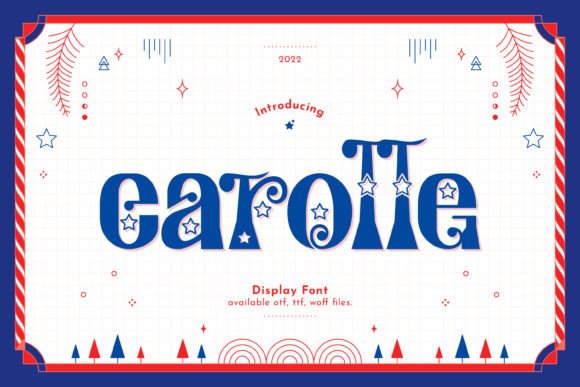
Introducing Carolle Font: The Whimsical and Splendid Lowercase Decorative Font
Are you a designer or crafter looking for a font that can add a touch of magic to your designs? Look no further than Carolle Font! This whimsical and splendid lowercase decorative font is perfect for creating enchanting designs that will captivate your audience. In this article, we’ll explore the features and benefits of Carolle Font, and provide you with some inspiring ideas on how to use it in your designs.
What is Carolle Font?
Carolle Font is a unique and elegant lowercase decorative font that is designed to add a touch of sophistication to your designs. Its whimsical and splendid features make it perfect for creating magical designs that will transport your audience to a world of wonder. The font is carefully crafted with intricate details and ornate flourishes, making it a standout choice for designers and crafters who want to create something truly special.
Features of Carolle Font
So, what makes Carolle Font so special? Here are some of its key features:
- Whimsical and Splendid Design: Carolle Font has a unique and playful design that is sure to capture the attention of your audience.
- Lowercase Decorative Font: The font is designed specifically as a lowercase decorative font, making it perfect for use in designs where you want to add a touch of elegance and sophistication.
- Intricate Details and Ornate Flourishes: The font features intricate details and ornate flourishes that add to its whimsical and splendid feel.
- Easy to Read and Use: Despite its decorative nature, Carolle Font is easy to read and use, making it perfect for a wide range of design applications.
Ideas for Using Carolle Font
So, how can you use Carolle Font in your designs? Here are some inspiring ideas to get you started:
- Storybook Covers: Use Carolle Font to create enchanting storybook covers that will transport readers to a world of wonder.
- Kids-Related Product Packaging: Add a touch of magic to kids-related product packaging, such as toys, games, and treats.
- Logos and Branding: Use Carolle Font to create unique and memorable logos and branding for your business or product.
- Business Cards and Stationery: Add a touch of elegance and sophistication to your business cards and stationery with Carolle Font.
- Fashion Labels and Tags: Use Carolle Font to create stylish and eye-catching fashion labels and tags.
Tips for Getting the Most Out of Carolle Font
Here are some tips for getting the most out of Carolle Font:
- Experiment with Different Sizes and Colors: Try out different sizes and colors to see how Carolle Font looks in different contexts.
- Pair with Other Fonts: Experiment with pairing Carolle Font with other fonts to create unique and interesting combinations.
- Use in Combination with Images and Graphics: Use Carolle Font in combination with images and graphics to create visually appealing designs.
In conclusion, Carolle Font is a whimsical and splendid lowercase decorative font that is perfect for designers and crafters who want to add a touch of magic to their designs. With its intricate details, ornate flourishes, and easy-to-read design, Carolle Font is sure to captivate your audience and transport them to a world of wonder. So why not give it a try and see what amazing designs you can create?